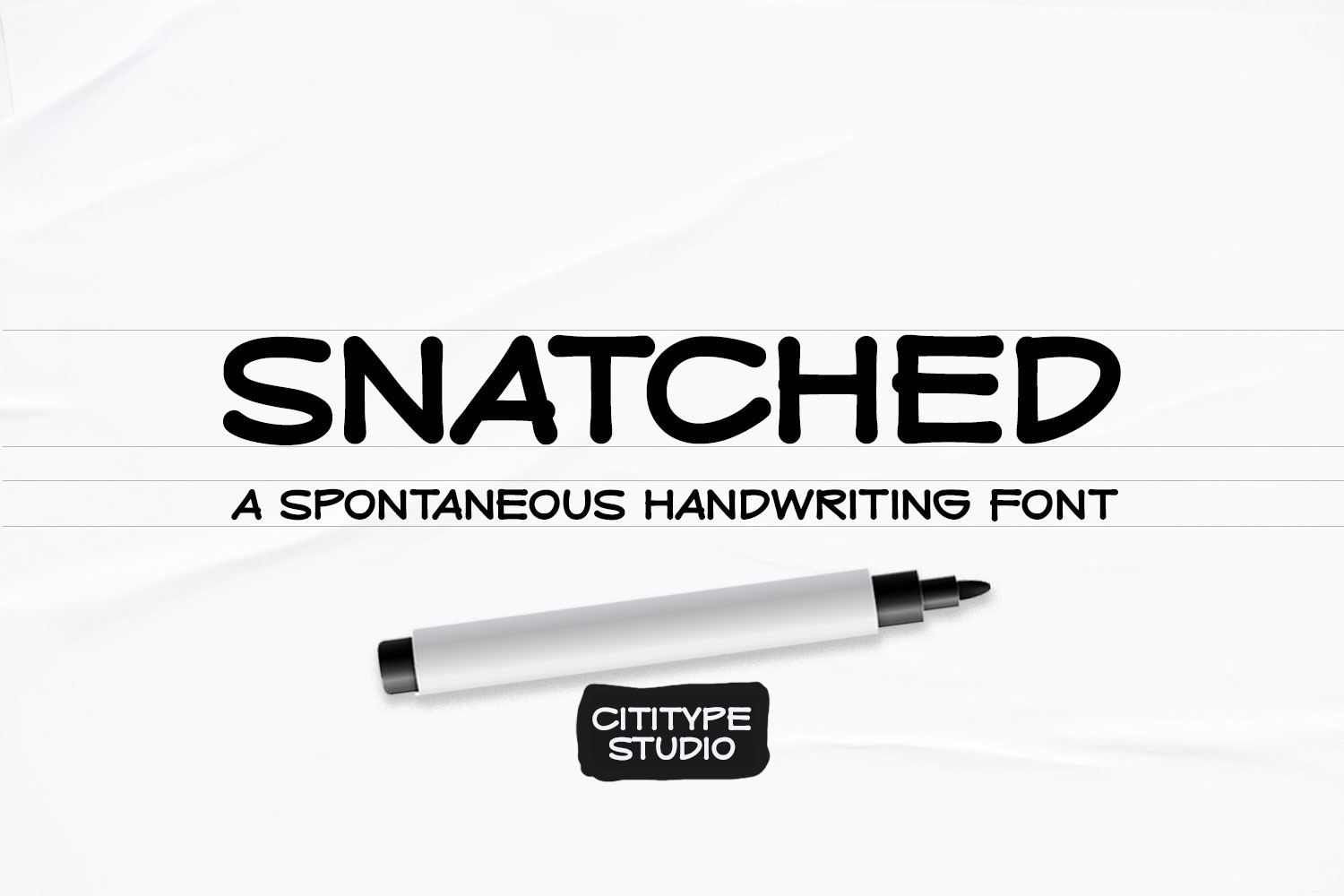
- Snatched – Spontaneous Handwriting
‘Snatched’ is a spontaneous handwriting. This name is taken from the slang term in the 2022 era to describe someone or something in a positive manner. This font consists of the same uppercase and lowercase, often referred to as ‘all capital letterform’, complete with numerals and punctuation.
Composed in tends to widen form which is more like the typical handwriting of architects. This font looks like it was written with a marker or technical pen, very bold stylish and legible. For designers this is an interesting thing, the design looks very natural and rhythmic to beautify presentations and blue prints. Can be installed for CAD programs, Sekthup and other applications.
This font is very suitable for various media related to handmade, craft businesses, logos, quotes, prints, social media posts, indie business, outdoor sports and other applications to strengthen the impression of handwriting and demand attention.